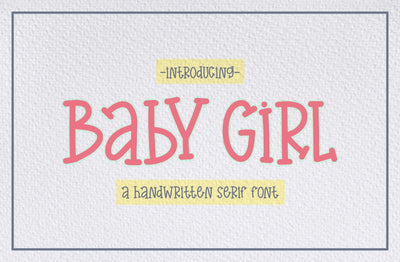
Baby Girl Handwritten Serif Font
Thanks for checking out my font "Baby Girl". This is a handwritten serif font (almost like a typewriter!) and it's perfect for simple. Use this for any kind of creative projects such as branding, social media, logos, journaling, etc. Also includes multilingual support.